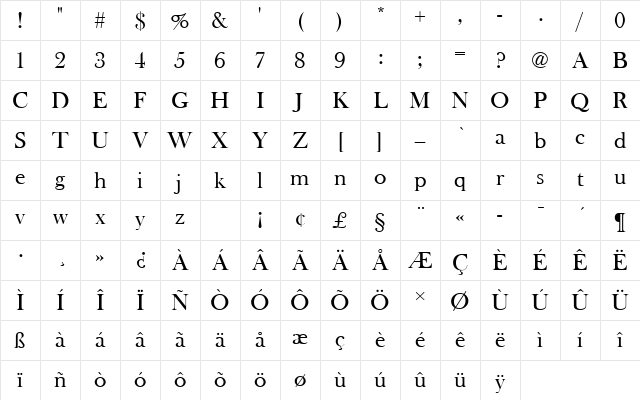
BaskervilleOldFacDRo1 Regular
Design Context for BaskervilleOldFacDRo1
BaskervilleOldFacDRo1 is a composed and adaptable typeface that performs quietly and consistently across a wide range of design contexts.